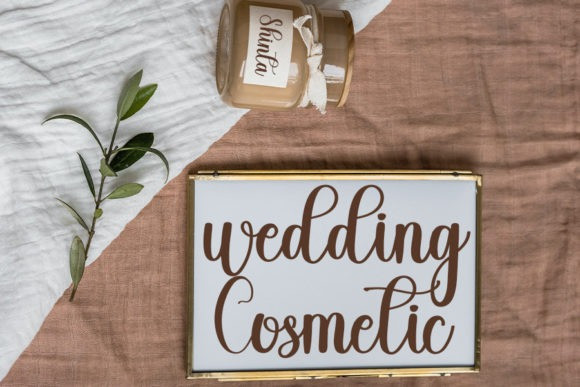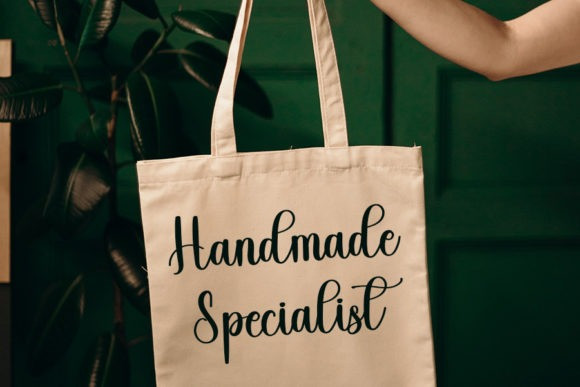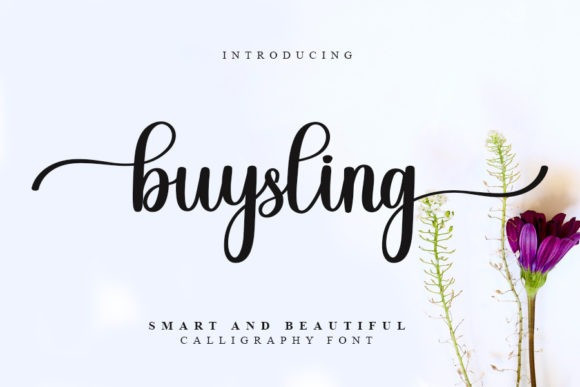
Buysling Font
Buysling Font is an enchanting script font. It will add a luxury spark to any design project that you wish to create! This font is PUA encoded which means you can access all of the amazing glyphs and ligatures with ease!